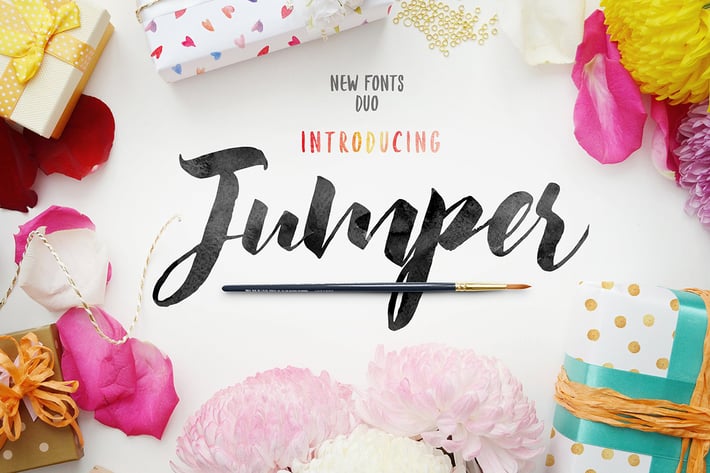
Jumper Script Fonts
Jumper is a handlettering typeface with a brush style, itβs perfect for latterhead, apparel design, headline, logotype, poster, card, and etc. For folks who have opentype capable software : The alternates are accessible by turning on 'Stylistic Alternates' and 'Ligatures' buttons on in Photoshop's Character panel, or via any software with a glyphs panel, e.g. Adobe Illustrator, Photoshop, Inkscape.
Uppercase and lowercase letters
Ligatures
Alternate letters
Splashes
Splatters
Symbols